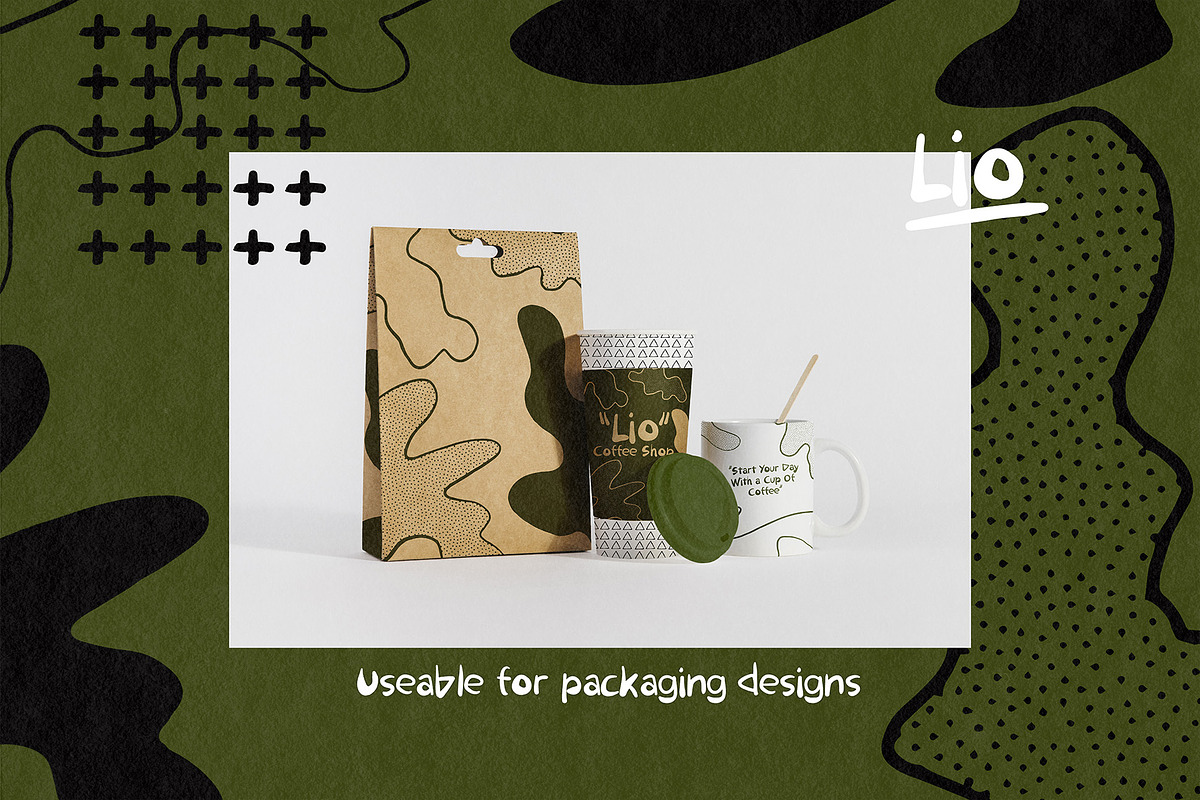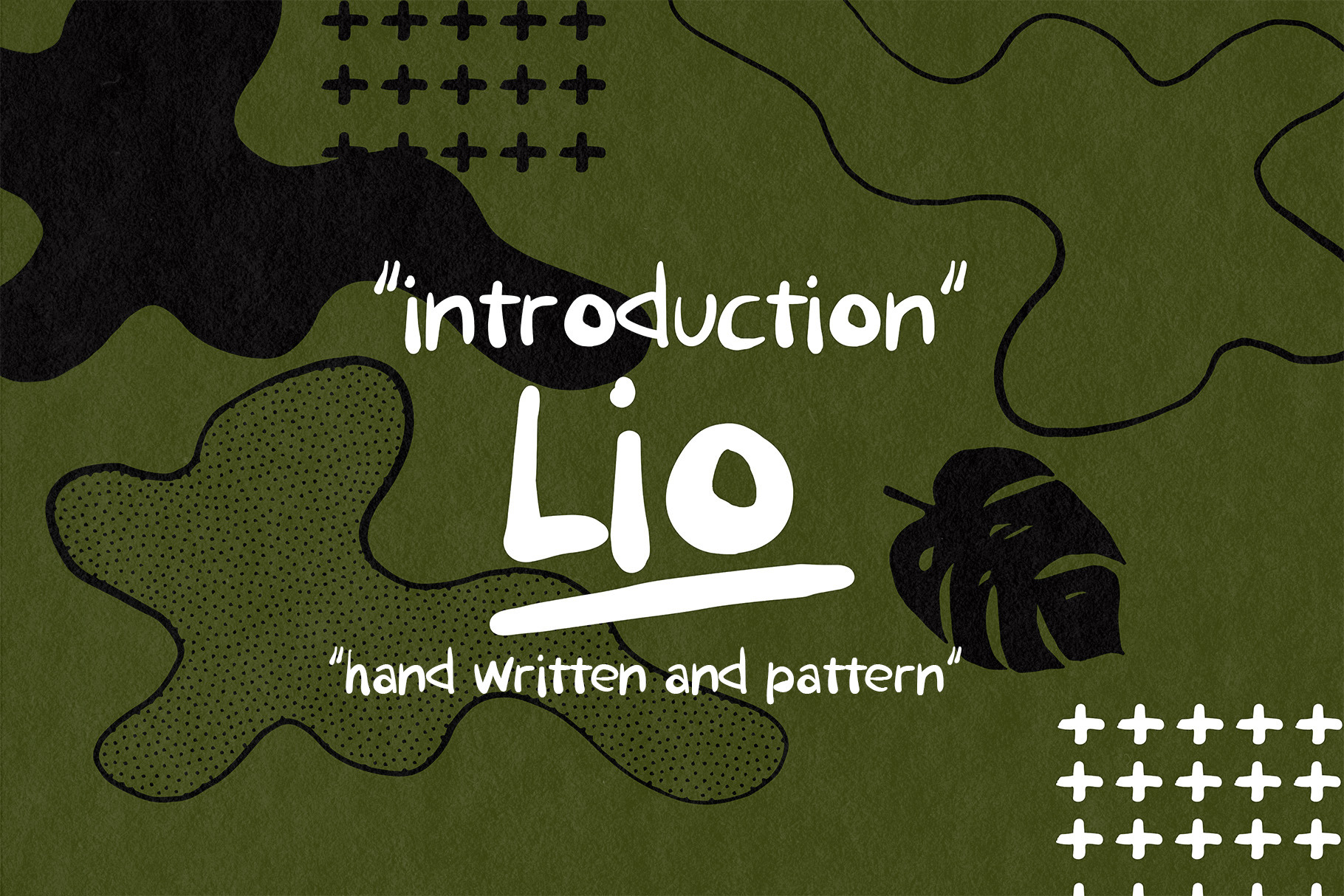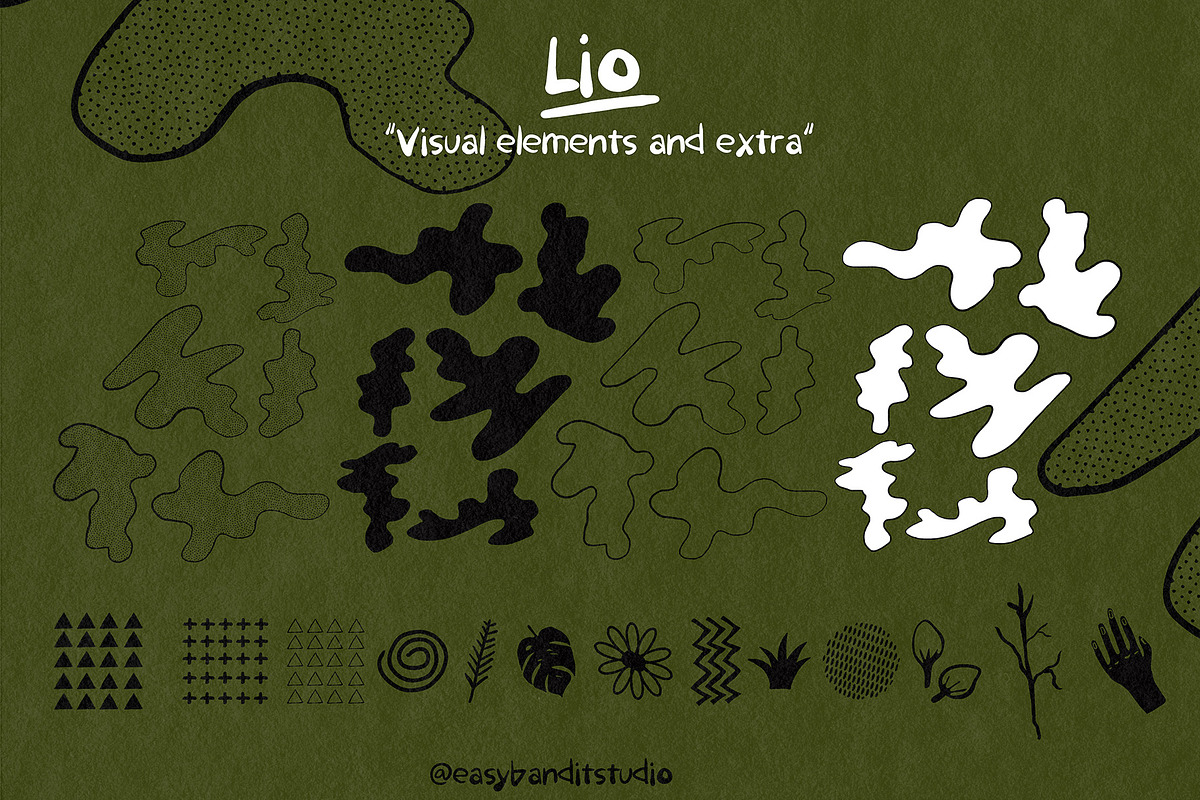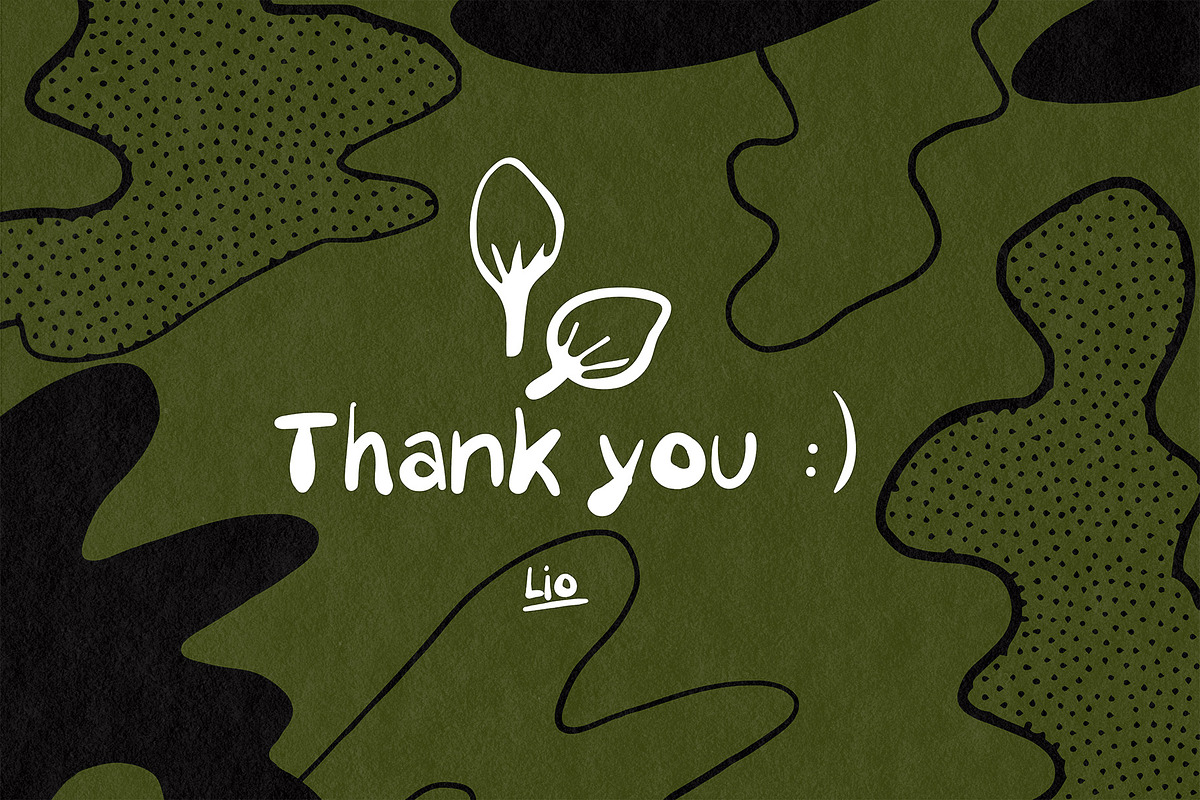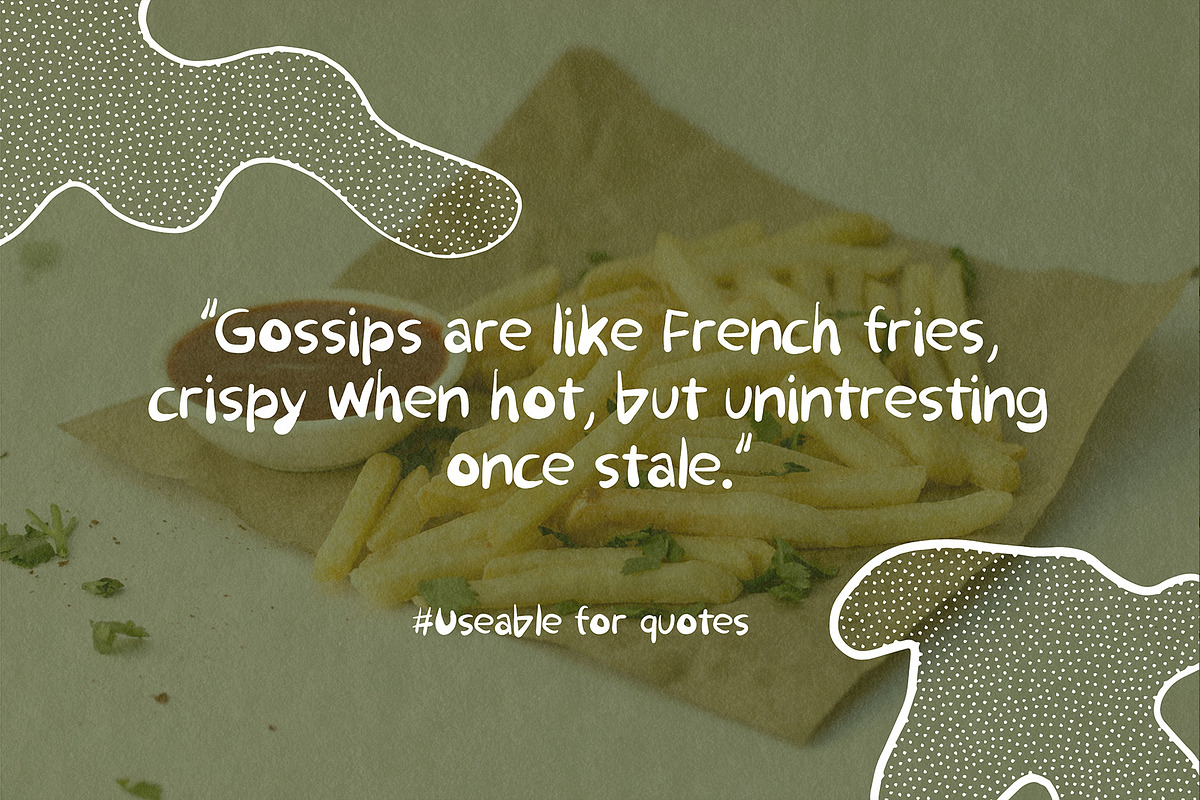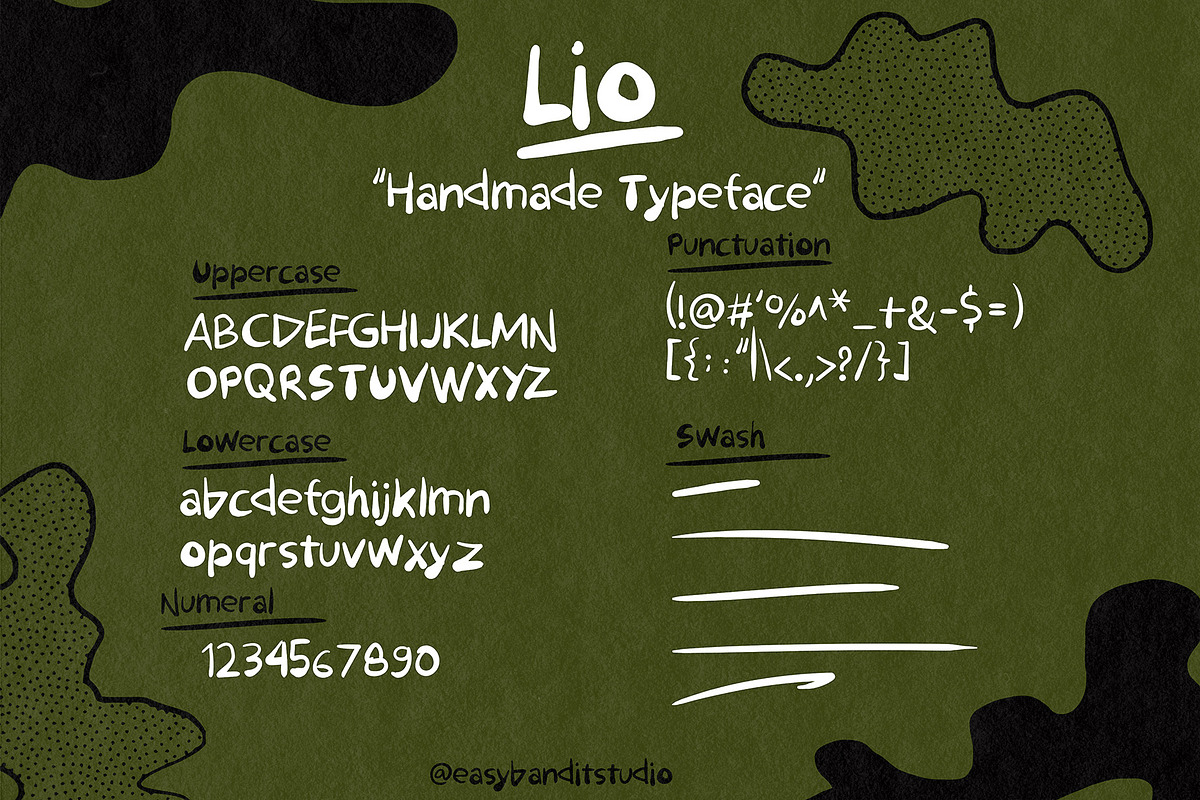
Lio Handwritten Font and Pattern
Lio Handwritten and Pattern both is handmade . perfect for creating packaging, quotes, logos, or just adding a handmade feel to any project! **
- Lio Handwritten: Uppercase letters, Lowercase letters, numbers, & punctuation and swash
- Handmade feel with different thickness